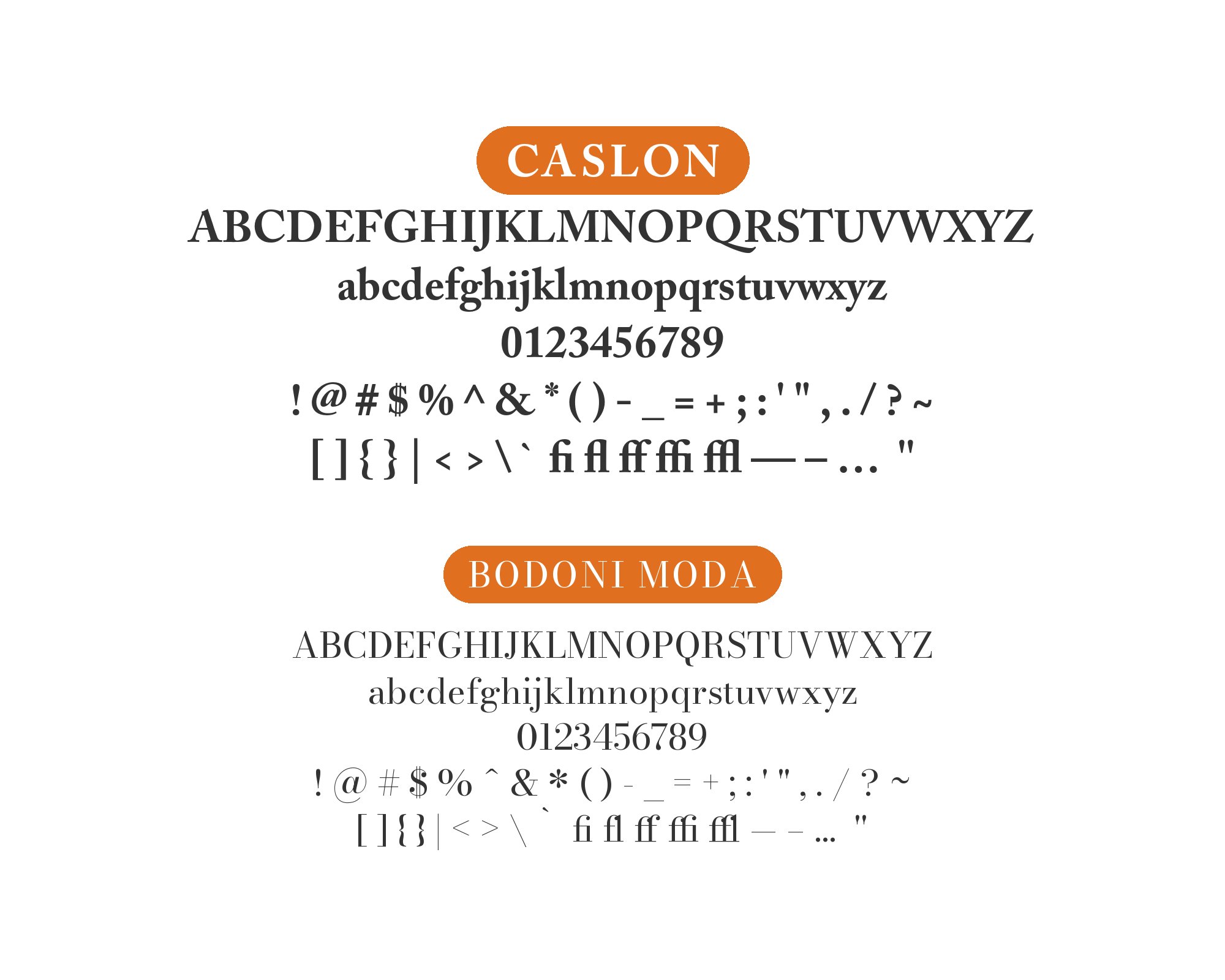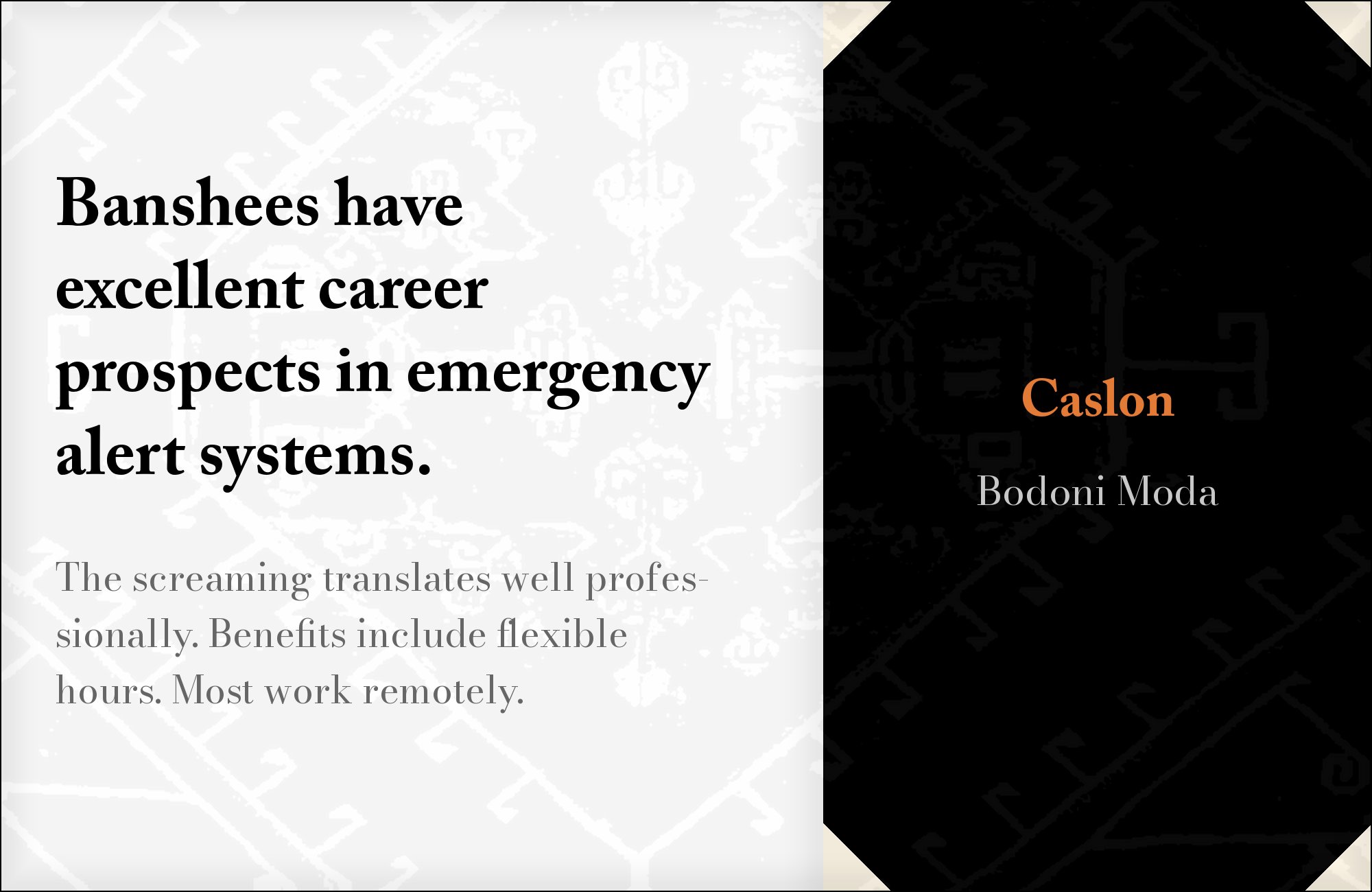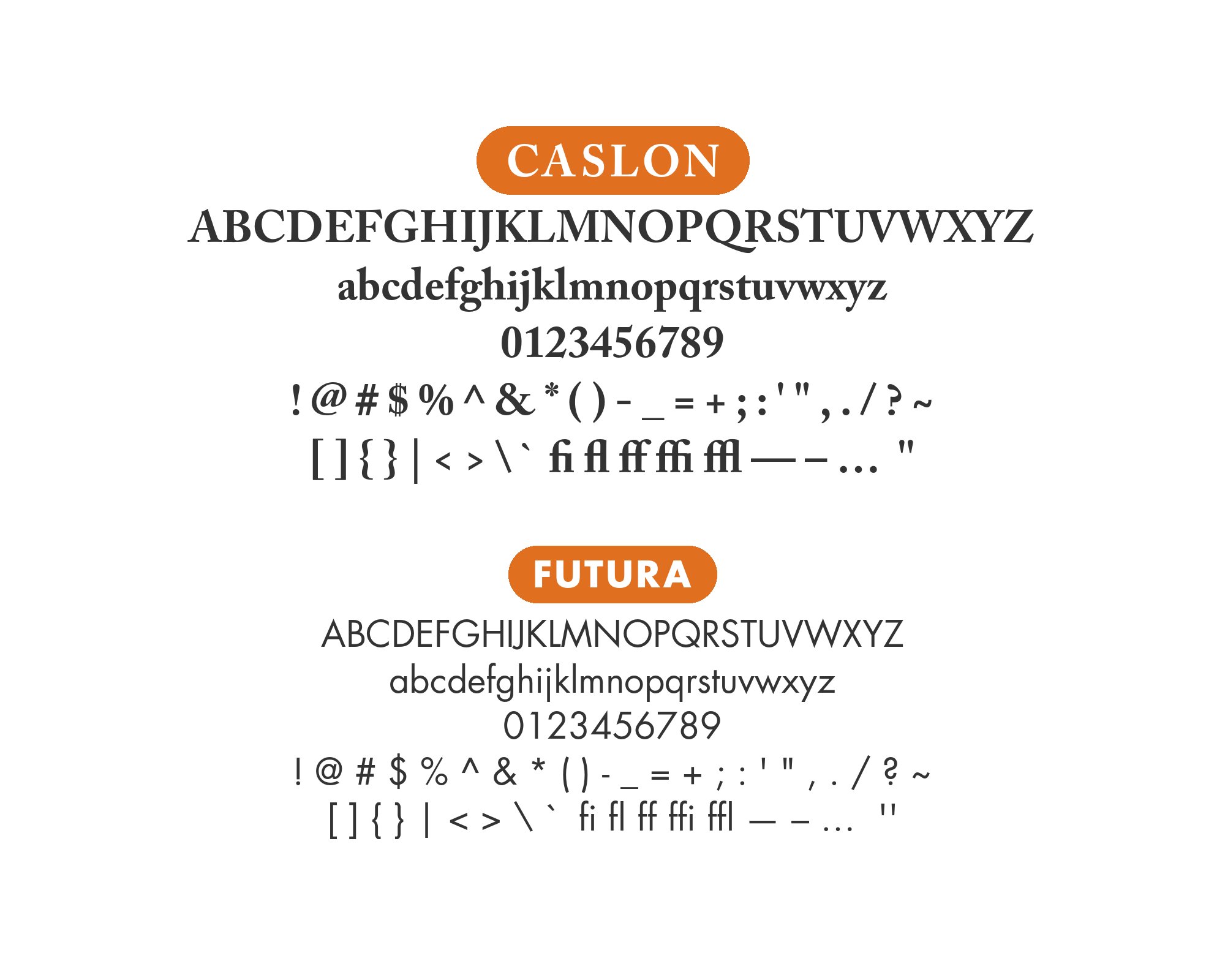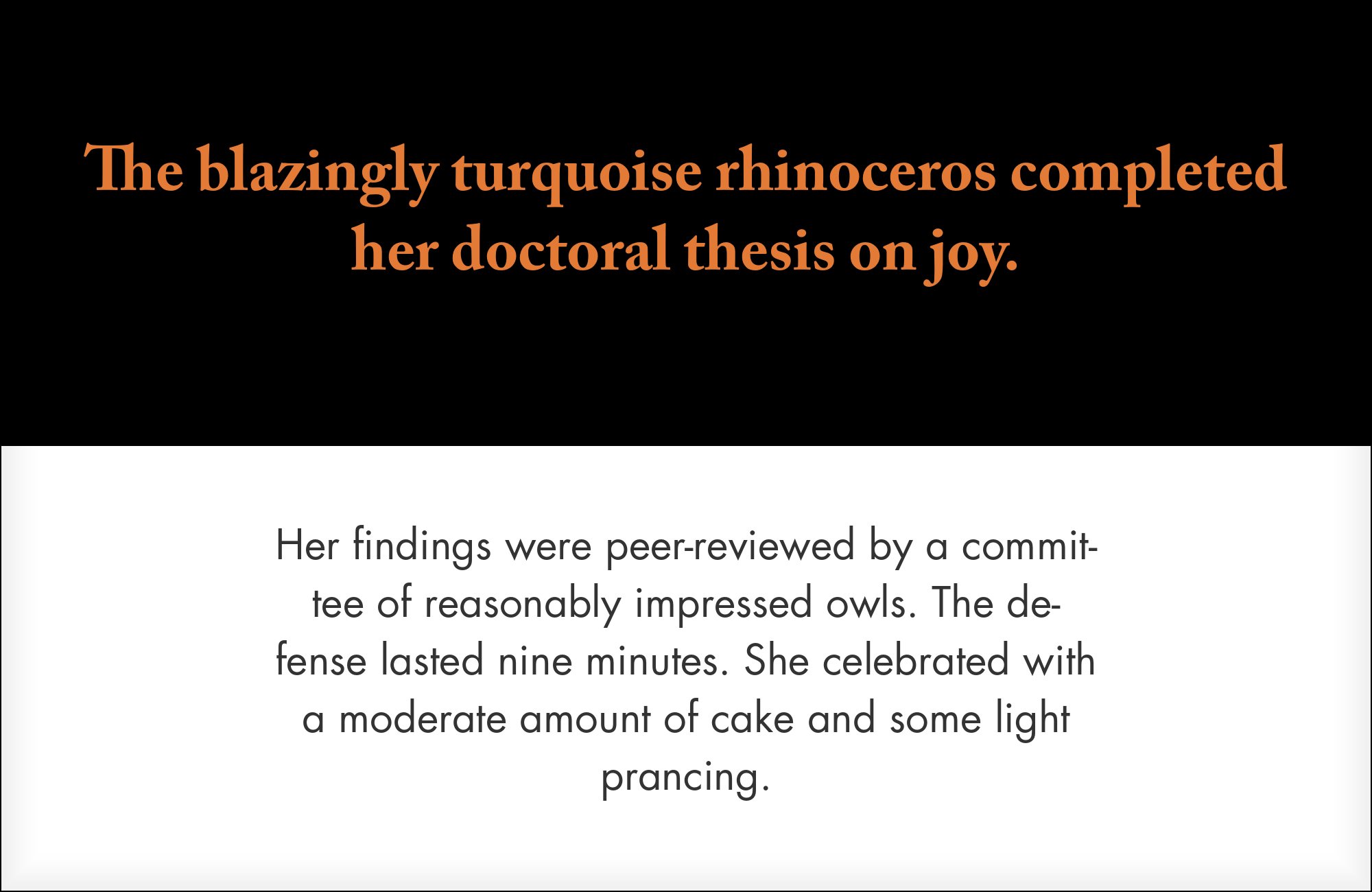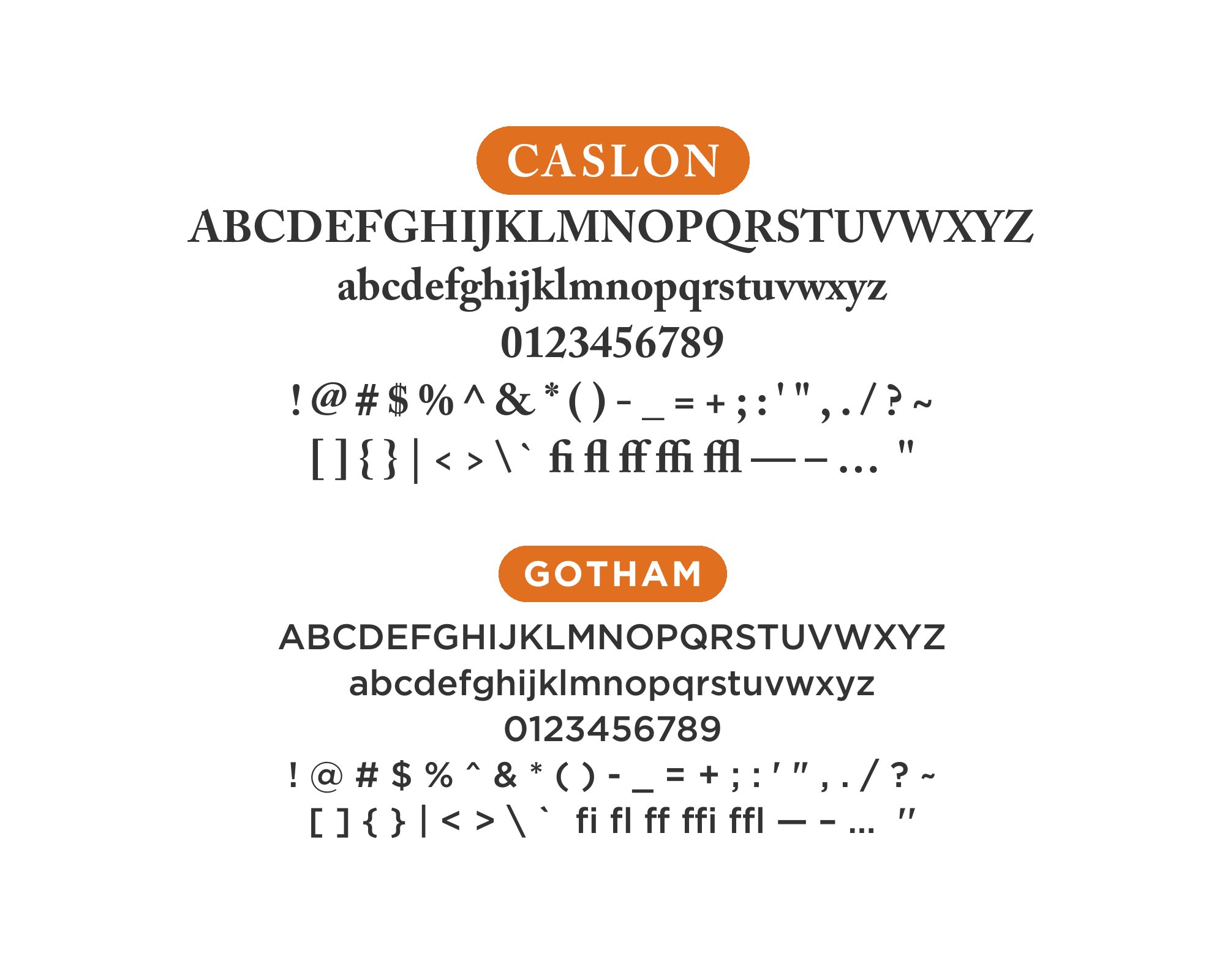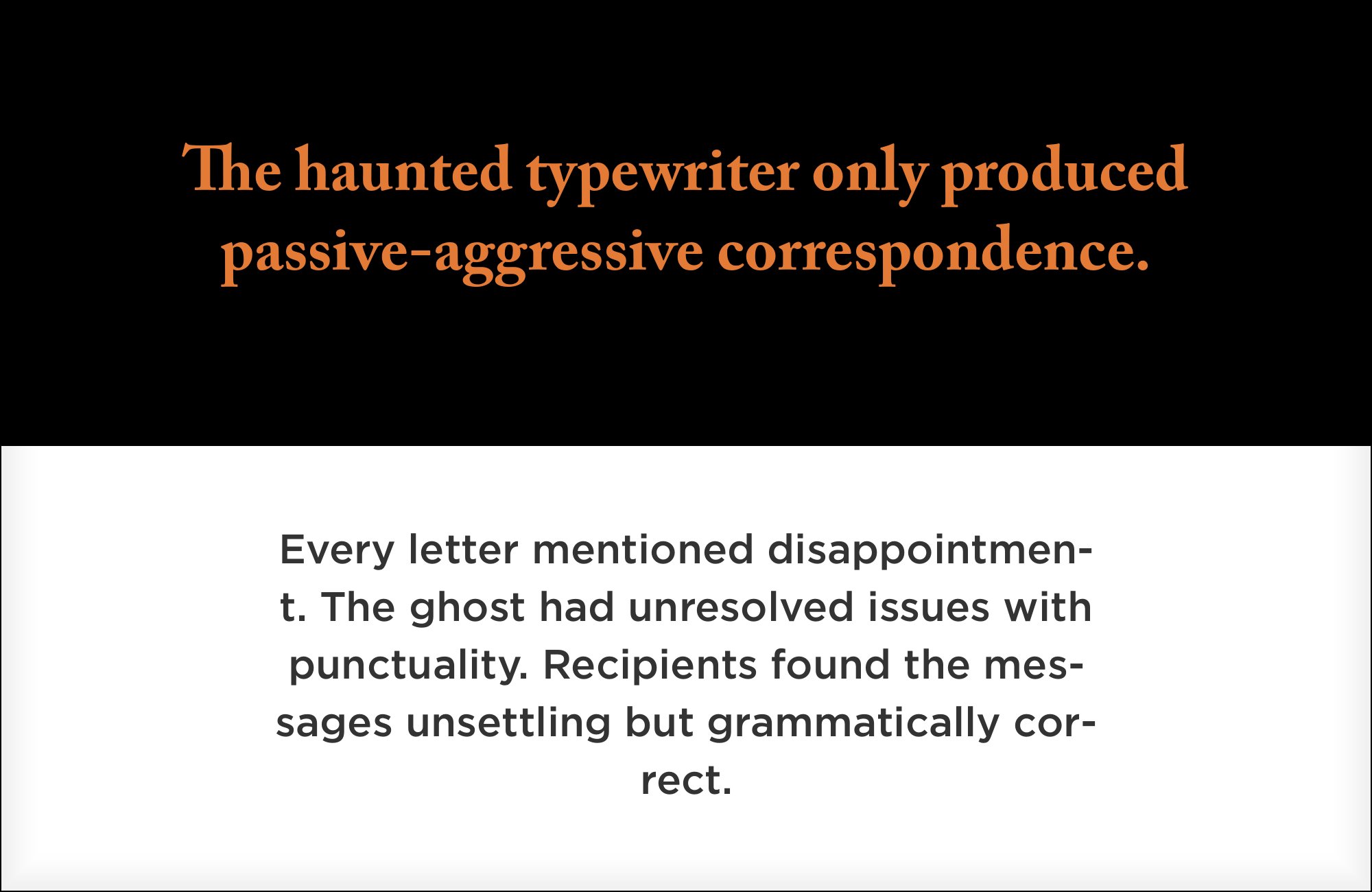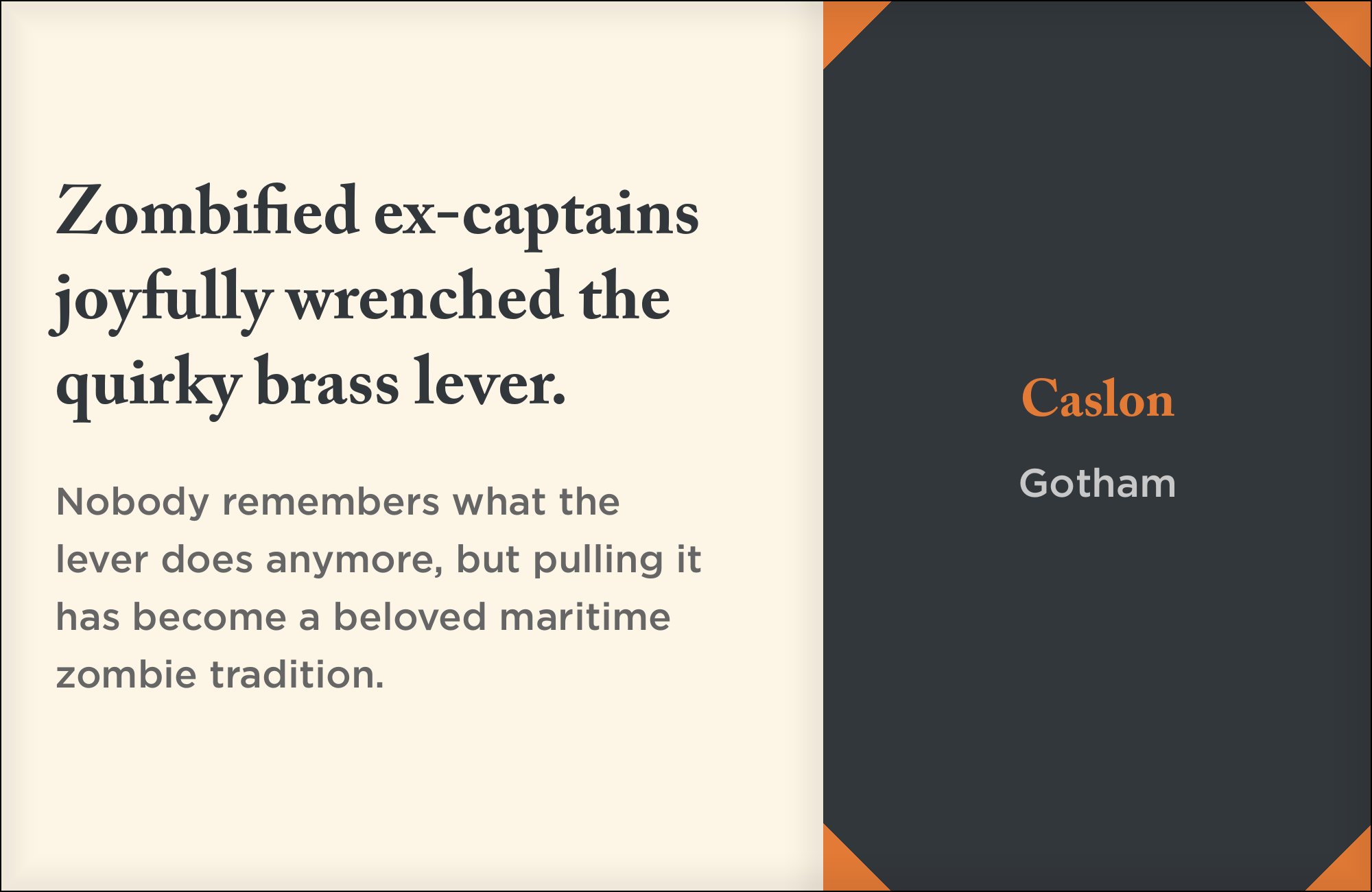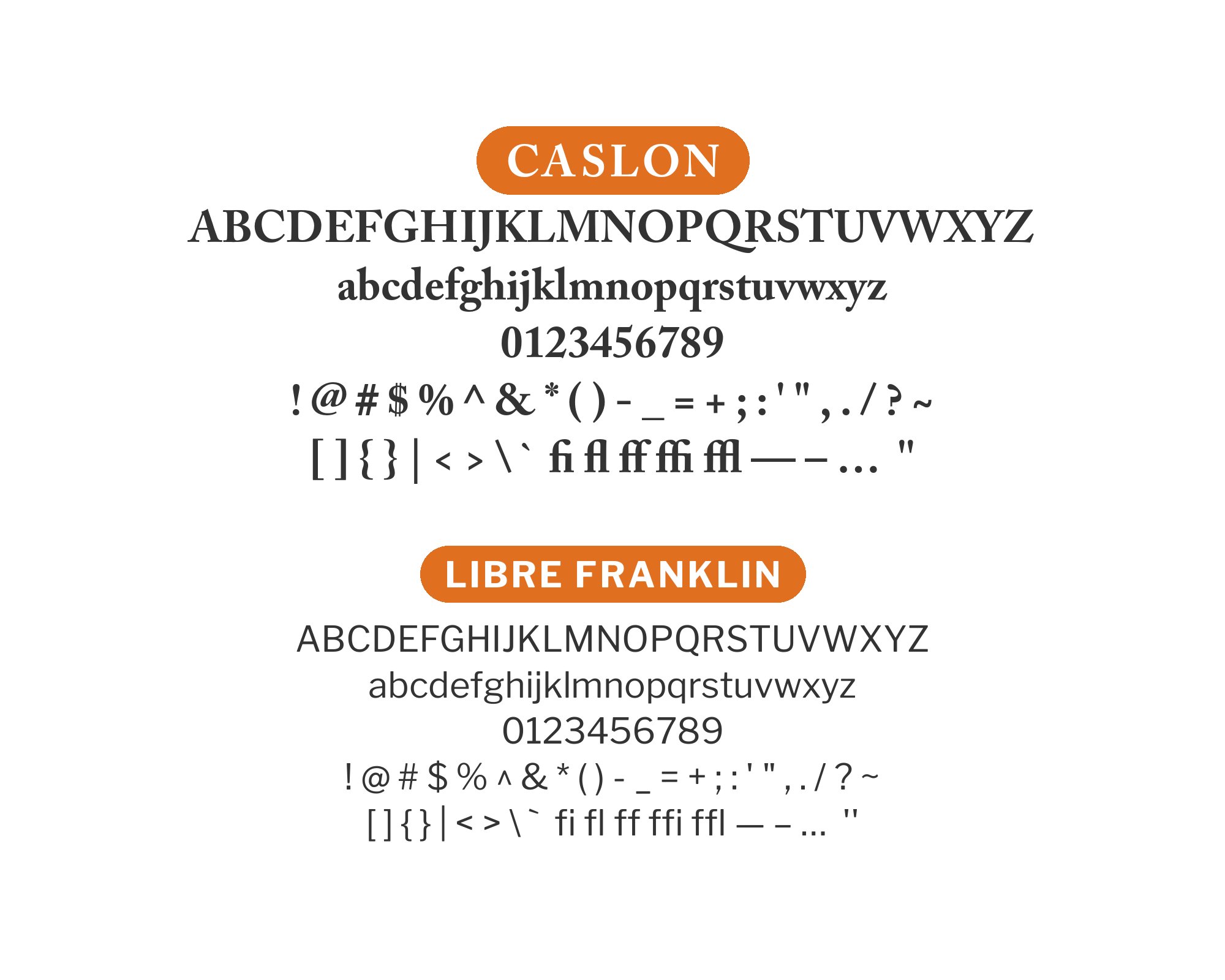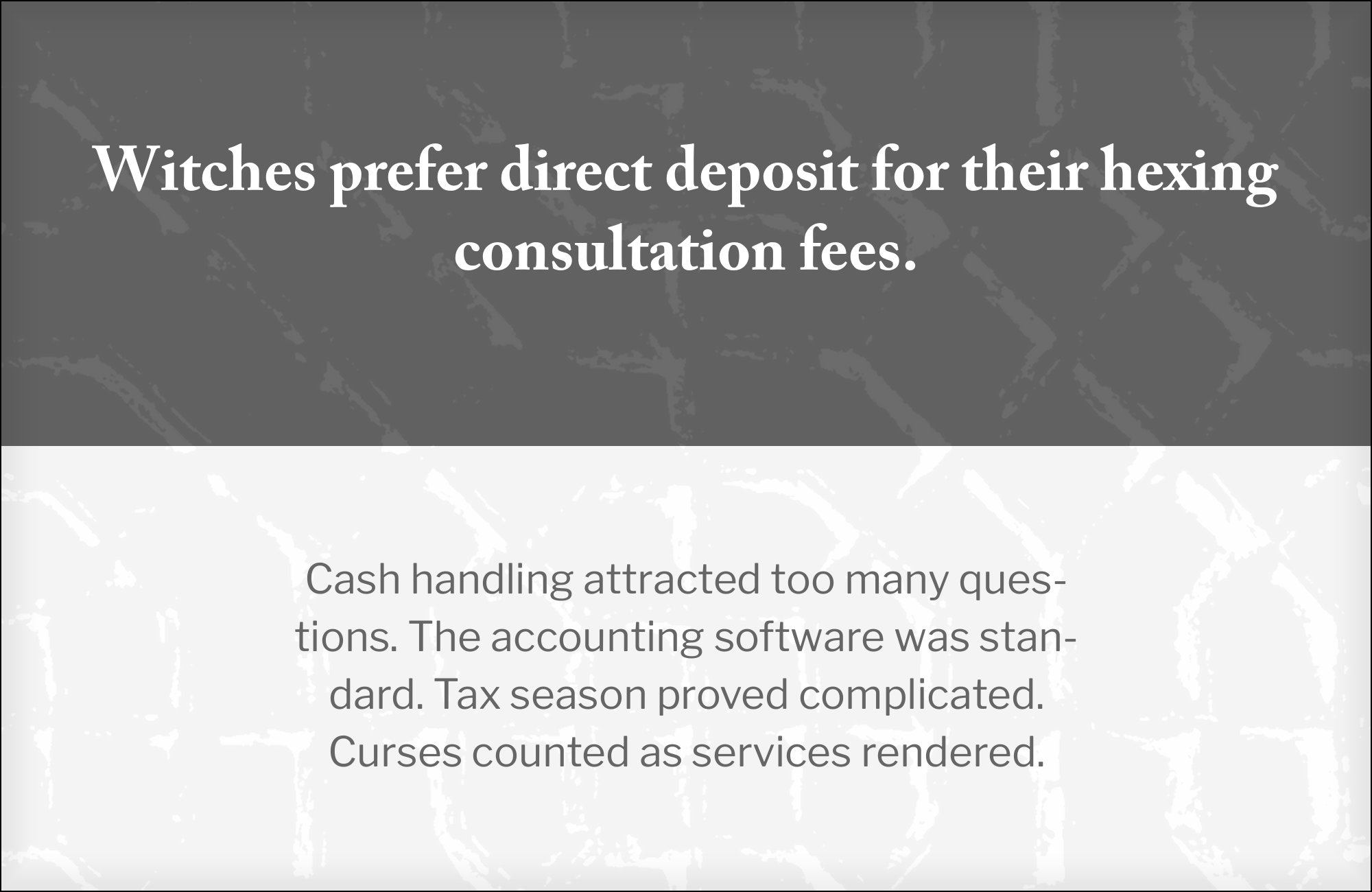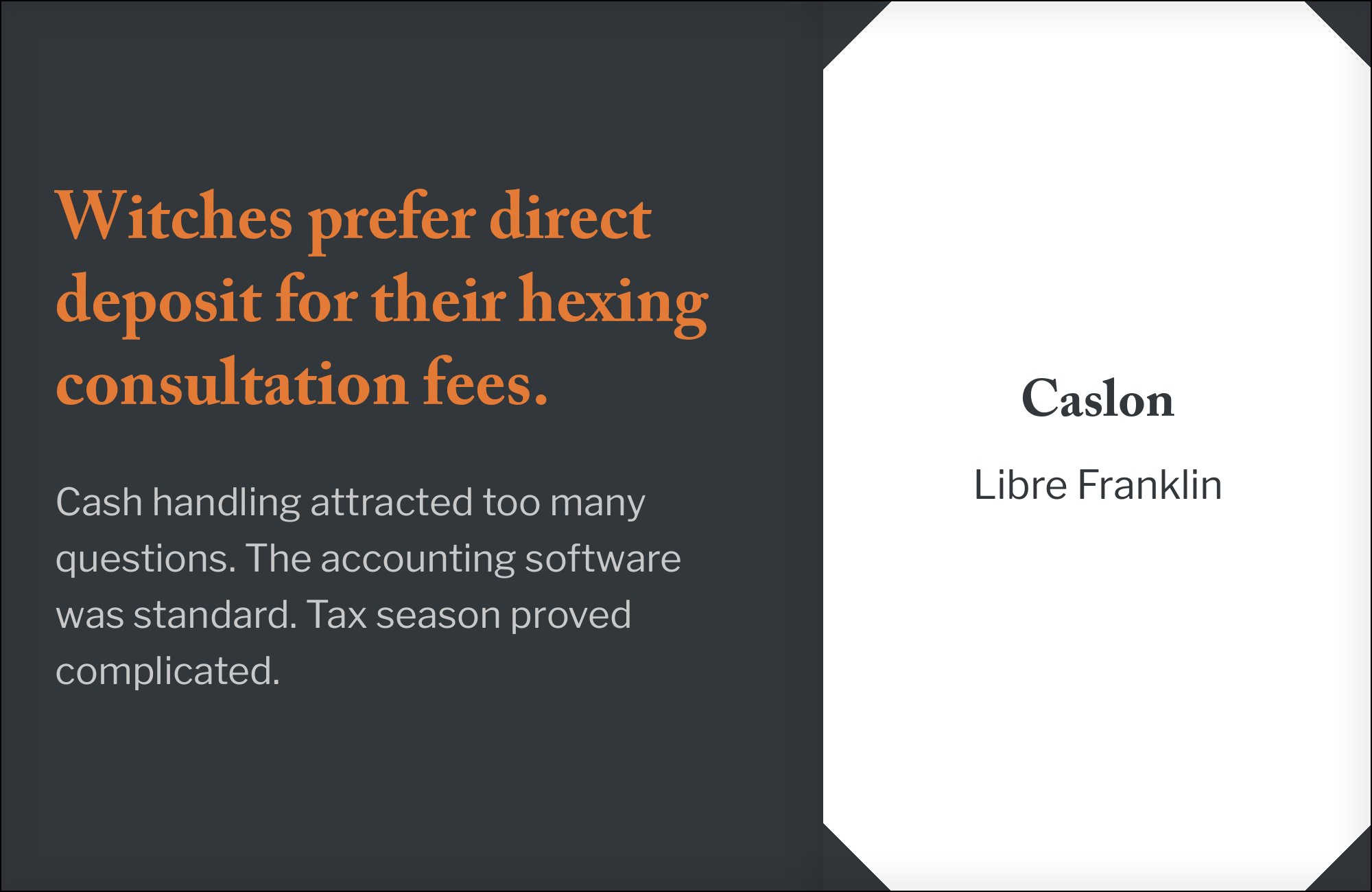
Caslon pairs great with Montserrat, Baskerville and Libre Franklin. All 11 pairings are shown below in real rendered specimens, with the reason each one works.
What fonts go with Caslon? “When in doubt, use Caslon” has long been printers’ shorthand, and the advice survives because the face itself is so forgiving, warm, slightly irregular old-style letterforms that read as authoritative without demanding a particular kind of partner.
William Caslon cut his first romans in London in the 1720s, and the typeface has been in more or less continuous use since — reprinted, revived and redrawn under names that now cover meaningfully different letterforms. Carol Twombly digitized Adobe Caslon Pro in 1990; it keeps the original’s bracketed serifs and moderate stroke contrast close to the 18th-century source. ITC Caslon 224, drawn by Ed Benguiat, is a bolder, advertising-oriented design that departs from Caslon’s original work. Libre Caslon, free on Google Fonts, splits the difference again with a Text cut for paragraphs and a Display cut built for headline-scale contrast. All three share the same calligraphic irregularity, an organic structure that resembles handwriting with a pen, which is where the face gets its warmth.
Because Caslon is old-style rather than transitional or modern, it carries body text confidently at almost any size, which frees its partners to specialize. Two strategies show up repeatedly in real work: pair it with a clean, even-weight sans for instant hierarchy between historical text and contemporary structure, or pair it with a second serif from a neighbouring period and let a trained eye separate them by axis and bracketing alone. Here are 11 fonts that pair well with Caslon, ordered from the most easily obtained to the more specialized.
1. Montserrat
Montserrat draws its capitals from painted shop signage in Buenos Aires’ Montserrat neighbourhood, and the geometric confidence of that source shows in every letter — near-perfect circles, an even stroke weight, and almost no stroke contrast. Set beside Caslon’s calligraphic irregularity, the pairing reads as book-meets-brand: Caslon supplies the reading voice, Montserrat supplies the label, button and headline voice. It is free on Google Fonts, which makes it the easiest of these eleven to actually deploy today. Keep Montserrat to short settings — navigation, captions, calls to action — and let Caslon do the paragraph work; Montserrat’s tight counters get monotonous at length.
Baskerville arrived a generation after Caslon, in the 1750s, and the difference between old-style and transitional shows clearly when the two sit side by side. John Baskerville’s letterforms are crisper, with sharper terminals and slightly higher contrast, so the pairing reads as continuity rather than contrast — two English serifs from the same broad century, close enough to feel unified on a page and distinct enough that a trained eye separates them. Baskerville ships on macOS; Windows has Baskerville Old Face, a related display cut without italic, so the combination is free to try if not identical. It appears with Caslon and Palatino on the cover of Mac & His Problem, where each face supplies one of the hand-drawn ampersands.
Libre Franklin descends from Franklin Gothic, the realist grotesque American newspapers relied on for over a century, and it keeps that face’s large x-height and even width at every weight. Set under Libre Caslon Display’s tighter spacing and sharper contrast, it holds body copy calm and legible while the display cut carries all the historical texture in the headline. Both are free Google Fonts, so the pairing costs nothing to license or host — a genuine advantage over pairing Caslon with a retail grotesque. Good for web articles, documentation and anywhere a reader needs to move quickly from a Caslon headline into several paragraphs of comfortable text.
4. Futura
Futura shares almost no structural DNA with Caslon, and that is the entire point of the pairing. Paul Renner built it in 1927 from circles, triangles and straight lines with the stroke contrast sanded away — the opposite of Caslon’s calligraphic stroke variation and bracketed serifs. Set the two together and hierarchy reads instantly: nobody mistakes the geometric sans for the old-style serif, or vice versa. The split recurs across enough unrelated sites and brand systems that it counts as a default rather than a novelty. Reserve Futura for headlines, labels and short display lines, and let Caslon’s warmth carry anything a reader is meant to actually read.
5. Palatino
Hermann Zapf drew Palatino in 1948 with the Italian Renaissance pen firmly in mind, and its broad, open counters and calligraphic flourishes give it a more humanist temperament than Caslon’s tighter old-style structure. That difference is useful rather than competitive: a layout that needs caption, body and display registers can get all three from two serifs, without reaching for a sans at all. The pairing has appeared on a book cover, Mac & His Problem, where Palatino, Caslon and Baskerville ampersands share one design without fighting for attention. Palatino ships free on both macOS and Windows, making it as easy to arrange as Baskerville.
6. Manrope
Manrope is a geometric sans with the corners softened just enough to avoid the clinical feel of a strict grotesque — rounder terminals, a slightly warmer rhythm, none of a severe grotesque’s coldness. That warmth makes it a more contemporary, lifestyle-brand partner for Caslon than a harder geometric face would be, useful in UI copy, marketing pages and product labelling where Caslon supplies pedigree and Manrope supplies approachability. It is free and open source, distributed through Google Fonts, so there is no licensing friction in either direction. Set it at interface sizes — buttons, tags, short labels — and leave paragraph-length reading to Caslon.
7. Libre Caslon Text
Libre Caslon Text is the reading companion to Libre Caslon Display, built on the same skeleton but with the contrast relaxed and the spacing opened for comfortable paragraphs. Pairing the two is the lowest-risk option on this list: because they share a common structure, nothing in proportion or rhythm can clash. The trade-off is variety — a same-family pairing supplies harmony but none of the contrast a second, unrelated face would bring to a layout. It works well as a default for a Caslon-branded site that wants headline drama without introducing a third typeface, and both cuts are free on Google Fonts.
Test the combination at the sizes you will actually publish before committing to it. Bodoni Moda’s hairlines vanish at paragraph size, Gotham’s licensing cost only makes sense at brand scale, and a same-family pairing like Libre Caslon Text and Display can look identical rather than harmonious if the weights aren’t set far enough apart. Set real copy, at real sizes, and look.